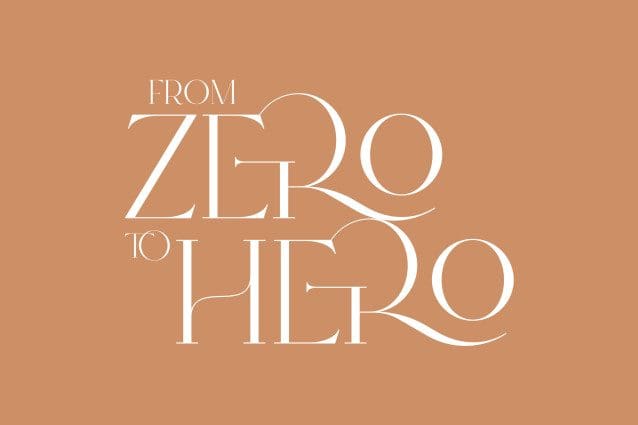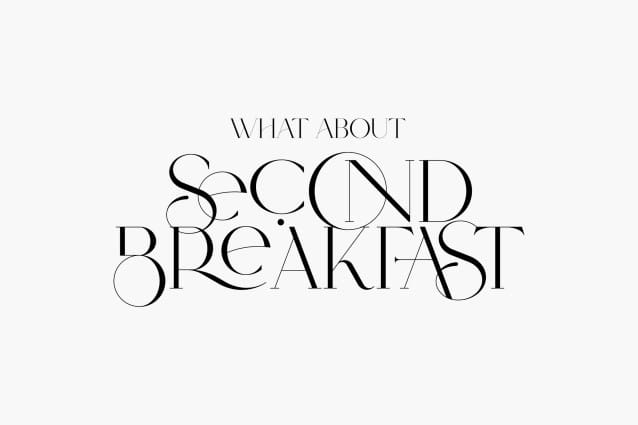
Type Maestro Font is an exquisite ligature serif font that exudes creativity and elegance. With over 100 meticulously crafted ligatures, this font is the perfect choice for designers looking to elevate their projects to new heights.